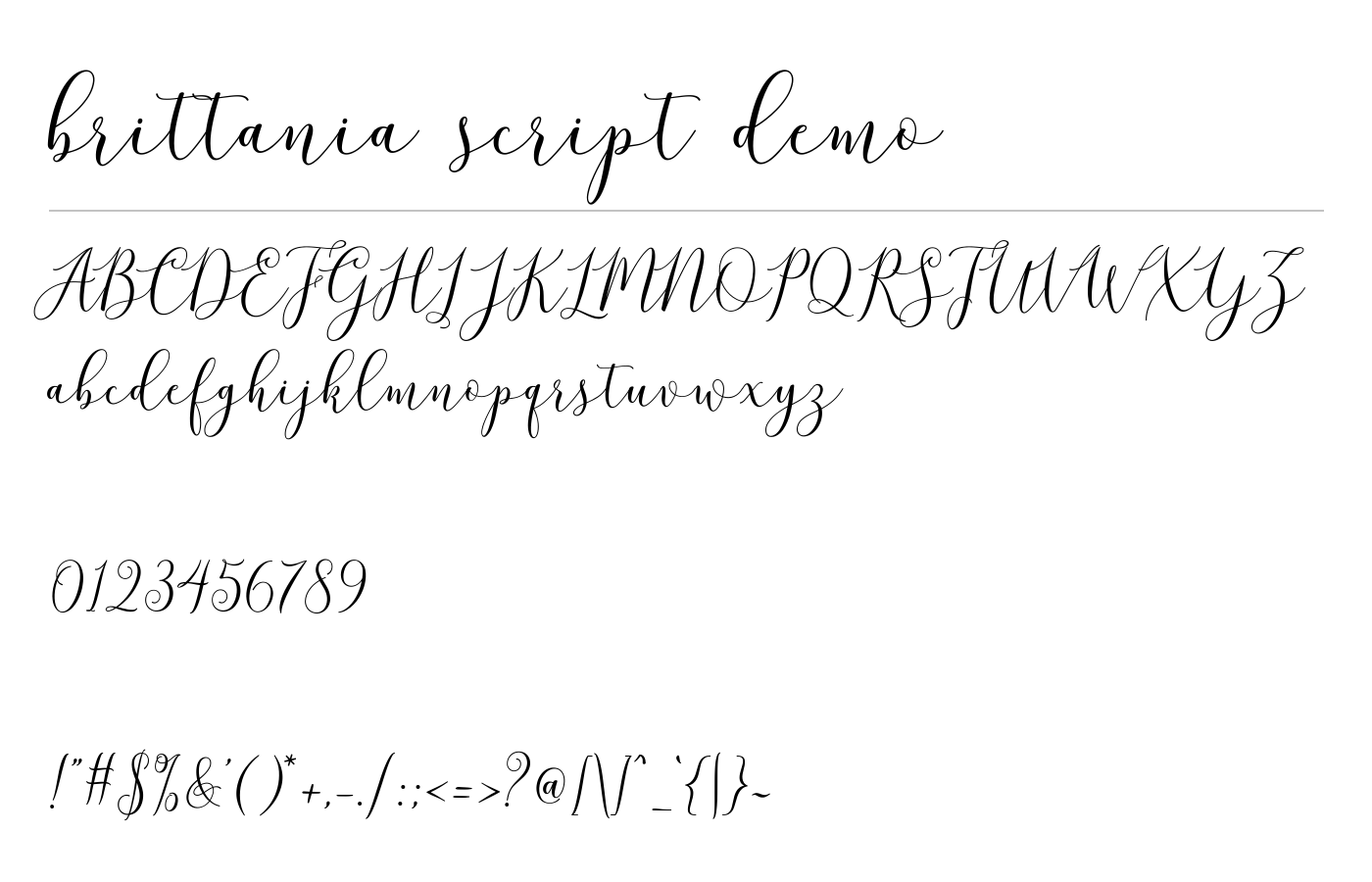
Brittania Script Demo is a delicate and elegant script font characterized by its flowing, calligraphic strokes and fine hairline weight, giving it a graceful and sophisticated appearance. Its high contrast between thick and thin lines, combined with ornate uppercase letters and a smooth, natural flow, makes it perfect for stylish invitations, branding, and elegant headlines that seek to convey a refined, romantic, or feminine mood. This font works best in decorative contexts where its intricate details can shine without sacrificing readability.
brittania script demo Font
About brittania script demo Font
| Font family | brittania script demo Font |
| Designer | Barmawy Muchtar |